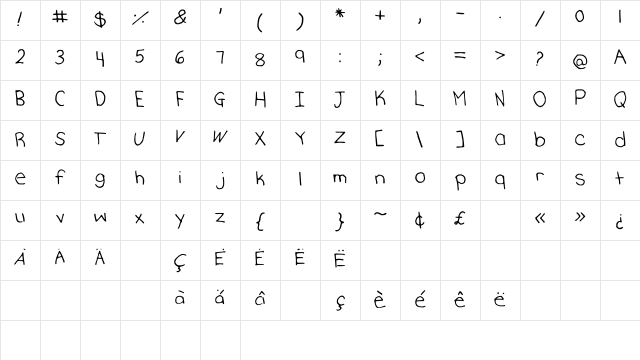
KatherinesHand Medium Free Font
KatherinesHand Medium
Design Context for KatherinesHand
KatherinesHand flows with the natural rhythm of handwritten lettering, making it ideal for designs that call for warmth and personal expression.
Font Pairing: Combine KatherinesHand with a simple geometric sans for maximum contrast - the tension between flowing curves and clean structure is a classic typographic pairing.
Pro Tip: Use KatherinesHand for short runs of text - names, titles, or taglines. Extended body copy in script faces tires the eye quickly.